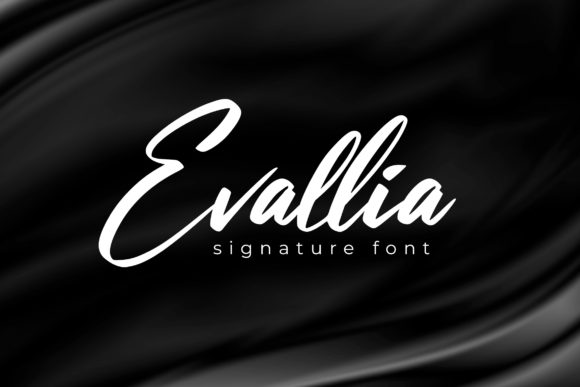
Evallia Font: Elevate Your Design with a Touch of Modernity
The world of typography is vast and diverse, with countless font styles to choose from, each with its unique characteristics and design possibilities. Among these, script fonts hold a special place for their elegance, expressiveness, and ability to add a personal touch to any design project. One such remarkable script font is Evallia, a beautiful typeface that features a varying baseline, smooth lines, and bold curves, making it an excellent choice for designers looking to infuse modernity into their creations.
What is Evallia Font?
Evallia is a stunning script font that stands out due to its distinctive characteristics. It boasts a varying baseline, which gives it a dynamic and fluid appearance, setting it apart from more traditional fonts. The smooth lines and bold curves of Evallia contribute to its modern and sophisticated look, making it versatile for a wide range of design applications, from branding and advertising to packaging and digital media.
Design Possibilities with Evallia
The unique features of Evallia open up numerous design possibilities. Its modern aesthetic makes it an ideal choice for projects that require a contemporary edge. Here are some ways Evallia can elevate your design:
- Branding and Logotypes: Evallia’s distinctive style can help create memorable brand identities. Its bold curves and smooth lines ensure that logos and brand names stand out, making a lasting impression on customers.
- Advertising and Marketing Materials: Whether it’s billboards, flyers, or digital ads, Evallia can add a touch of sophistication and modernity to advertising materials, capturing the audience’s attention effectively.
- Packaging Design: For product packaging, Evallia can contribute to creating an attractive and modern look, enhancing the product’s appeal on store shelves.
- Digital Media: In digital platforms, such as websites and social media graphics, Evallia can add a professional and contemporary feel, improving user engagement.
Typographic Features of Evallia
Evallia’s beauty lies in its typographic features, which include:
- Varying Baseline: This feature gives Evallia a lively and dynamic appearance, making it more engaging than fonts with uniform baselines.
- Smooth Lines: The smoothness of Evallia’s lines ensures that the font looks elegant and refined, suitable for designs that require a touch of sophistication.
- Bold Curves: The boldness of Evallia’s curves adds a sense of confidence and modernity to the font, making it perfect for designs that aim to stand out.
Evallia vs. Other Script Fonts
While there are many beautiful script fonts available, Evallia holds its own due to its unique combination of features. Compared to more traditional script fonts, Evallia offers a more modern and dynamic look, thanks to its varying baseline and bold curves. This makes it a better choice for designers looking for a font that can add a contemporary touch to their designs.
In comparison to other modern script fonts, Evallia stands out for its elegance and versatility. Its smooth lines ensure that it looks refined and sophisticated, making it suitable for a wide range of design projects, from luxury branding to digital media.
Tips for Using Evallia Effectively
To make the most of Evallia, consider the following tips:
- Pair with Complementary Fonts: When using Evallia alongside other fonts, choose typefaces that complement its modern and elegant look. Simple sans-serif fonts or classic serifs can work well in contrast to Evallia’s script style.
- Consider the Color Scheme: Evallia can be used with a variety of color schemes, but it’s essential to choose colors that enhance its features. Monochromatic schemes or subtle gradients can highlight Evallia’s smooth lines and bold curves.
- Pay Attention to Sizing: Evallia’s impact can vary with size. For headings and titles, larger sizes can emphasize its bold curves and dynamic baseline. For body text, ensure that the font size is readable while maintaining its elegant appearance.
| Font Name | Evallia Font |
| Author | aldedesign |
Evallia is a beautiful script font that can add a touch of modernity to any design project. Its unique combination of a varying baseline, smooth lines, and bold curves makes it stand out in the world of typography. Whether you’re working on branding, advertising, packaging, or digital media, Evallia offers a versatile and sophisticated solution. By understanding its features and how to use it effectively, designers can elevate their creations and leave a lasting impression on their audience.